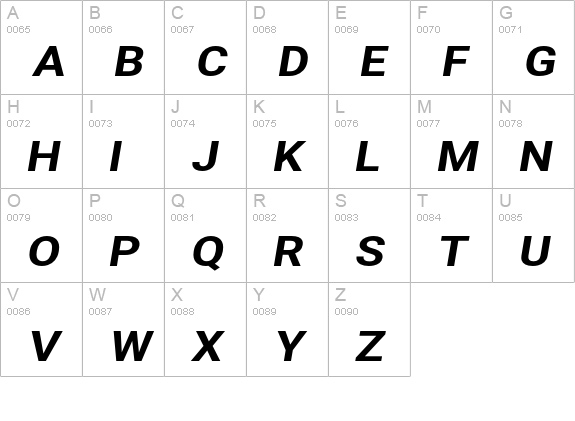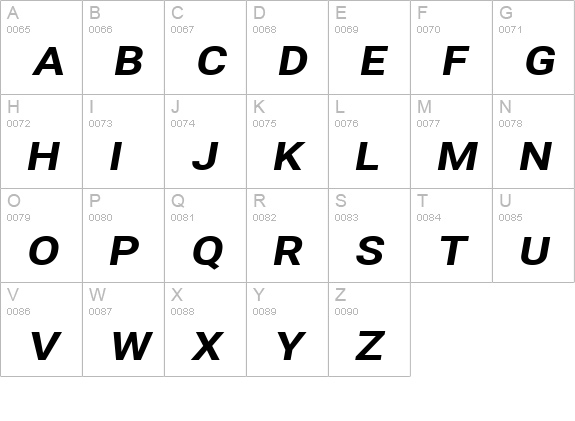
Asimov Extra Wide Italic Font Details
Asimov Extra Wide Italic is a distinctive, extended-width, italic variant in the Asimov typeface family \xE2\x80\x94 well suited to design and typography projects.
Introducing the captivating Asimov Extra Wide Italic font, a remarkable addition to any designer's typographic repertoire. This font effortlessly combines elegance and modernity, offering a unique twist to traditional italics. Its extra wide proportions command attention and create a visually striking impact, making it the perfect choice for headlines, titles, and any design project that requires a touch of sophistication. The Asimov Extra Wide Italic font boasts a sleek and stylish appearance, with each letter meticulously crafted to perfection. Its flowing curves and slanted angles create a sense of dynamic movement, giving your designs a sense of energy and vitality. Whether used for branding, advertising, or editorial purposes, this font will instantly elevate your work to new heights. But what sets the Asimov Extra Wide Italic font apart is its accessibility. We believe that great design should be available to all, which is why this font is freely available to download at FontsMarket.com. This means that designers, creatives, and enthusiasts alike can effortlessly incorporate the beauty of the Asimov Extra Wide Italic font into their projects without any restrictions. With its versatility and undeniable charm, the Asimov Extra Wide Italic font is a true gem in the world of typography. Its ability to effortlessly adapt to various design styles and contexts is truly exceptional. So whether you're looking to add a touch of elegance to a website, create eye-catching signage, or design a standout logo, the Asimov Extra Wide Italic font will undoubtedly be the perfect companion for your creative endeavors. Download the Asimov Extra Wide Italic font today from FontsMarket.com and let your imagination run wild as you explore the endless possibilities it offers. Elevate your designs and set yourself apart with this remarkable font that effortlessly merges sophistication and creativity.